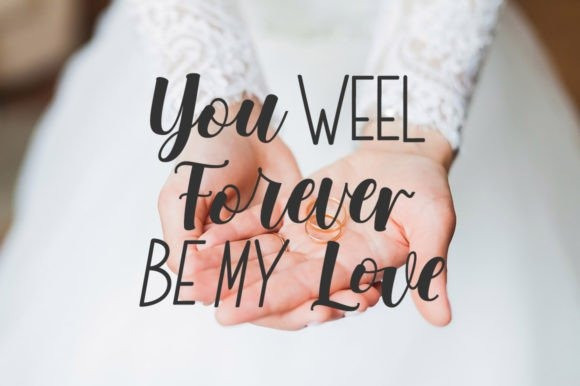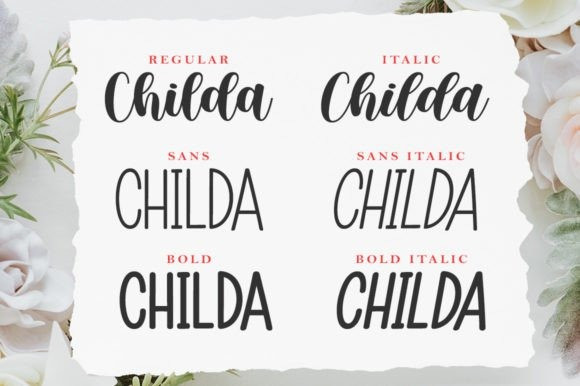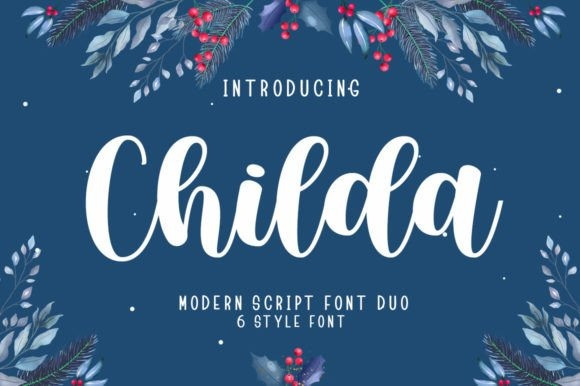
Childa Font
Childa Font is a spectacular duo font (script and sans serif). Incredibly versatile, this font is suitable for a large variety of design ideas. No matter the topic, this font will be an incredible asset to your fonts’ library, as it has the potential to elevate any creation.